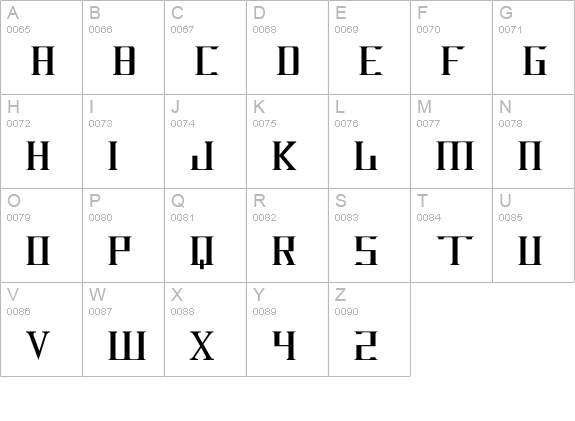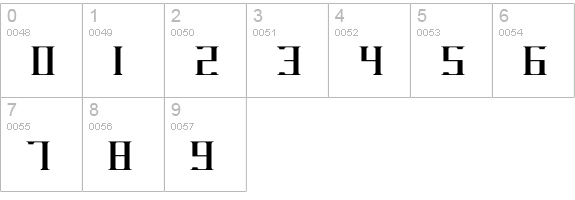
DarkWind Font Details
DarkWind font is a stunning display typeface that exudes a sense of mystery and elegance. Its bold, sharp lines and intricate design make it perfect for adding a touch of drama to your projects. Whether you're creating posters, logos, or any other design that requires a bold statement, DarkWind font is sure to make a powerful impact. The best part? DarkWind font is completely free to download at FontsMarket.com. This means you can easily add this beautiful font to your collection without breaking the bank. Don't miss out on the opportunity to elevate your designs with the captivating allure of DarkWind font. Download it today and let your creativity soar.